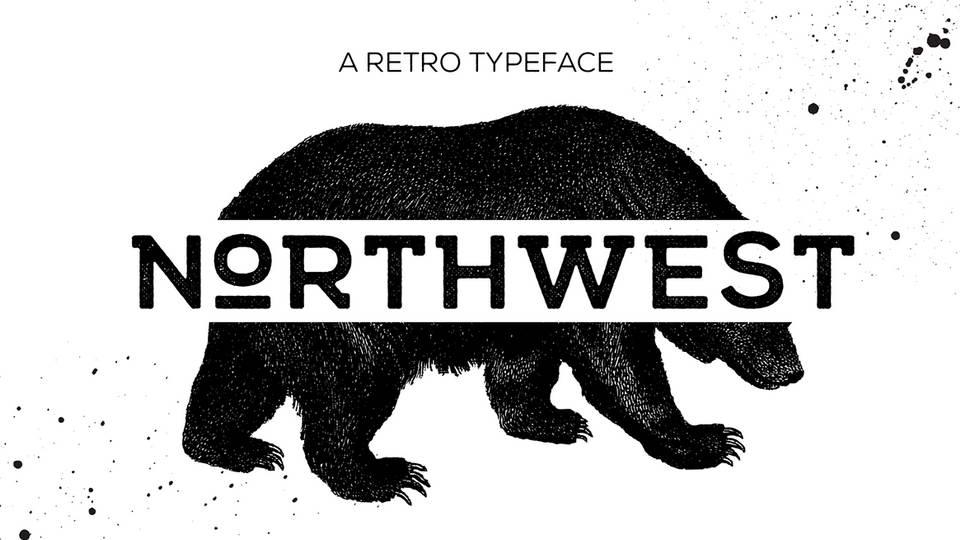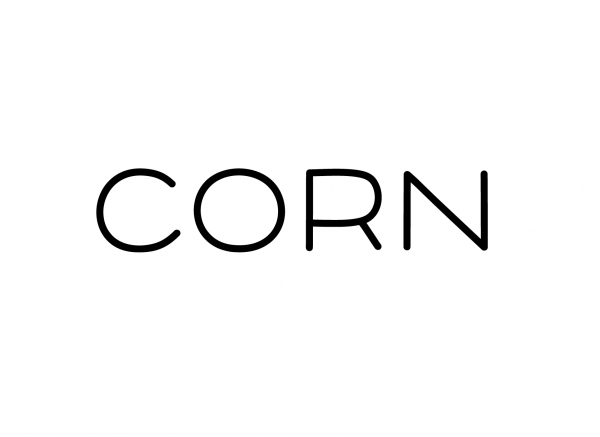
You probably already know that everything about a website matters, from the creation, design, platform, hosting, and domain to seemingly small details like the font of the text on the website.
Fonts are a key factor in the visual presentation, technical performance, and user appreciation of a website. In other words, font size and appearance play a major role here.
In this article, we'll introduce you to the most common and popular WordPress fonts and help you install them if your chosen WordPress theme doesn't have them.
What Do Modern WordPress Fonts Look Like?
These are almost all the fonts we see on printed or online materials today. Most of them are called "serif" fonts and contribute to the readability of texts through their stylistic features. We refer to them as "modern," although many of them date back to the 18th century and persist with minimal changes in typography, including bold, stylish, professional-looking, and sometimes leaning toward italics.
It's hard to count how many fonts there are today, but the largest online font retailer, MyFonts, has over 130,000 suggestions. We know that your WordPress theme comes with a default font, which might not be your favorite. We'll show you how to change fonts yourself.If you have a WordPress site but haven't started blogging yet, read our article, where we've explained in detail how to create a blog in WordPress.
How to Add a Font in WordPress
Regardless of the WordPress theme you've chosen, you can change or add fonts. It’s possible by identifying the CSS script that renders the text fonts in specific areas like the header, footer, and body.
8. Tell WordPress where the new font should be used by modifying the CSS. You need to open the style.css file and add another code snippet. Choose which parts of the website should use your chosen font and specify its name, then update the file.
The 16 Best Fonts for WordPress in 2024
To help you decide which font to use, we have curated a list of WordPress fonts that deserve your attention today. Check it out below.
1. Glober
Glober Font
Firstly, we present a base font that's easy to read and suitable for headlines or body text on WordPress websites and blogs: a sans serif font (without additional boldface). The Glober font family consists of a total of 18 variants, including bold and italic, which all differ in weight.
2. Corn
Corn Font
Here is a proposal that stands out with rounded corners of the symbols. The Corn font has 14 style variations suitable for headlines, logos, and, in some cases, even body text.
3. Northwest
Northwest Font
Northwest is also one of the modern fonts that are suitable for WordPress, but it also impresses with its retro flair. It is perfect for headlines and even for offline messages. Also, pay attention to the decorative elements that are part of the font styles.